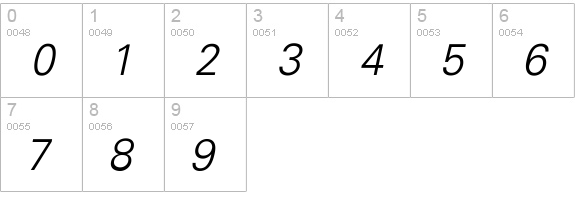
UniformLightOblique Font Details
UniformLightOblique is a stunning font that combines elegance and modernity in a harmonious way. With its slanted and light design, this font exudes a sense of sophistication and flair, making it perfect for a variety of design projects. The UniformLightOblique font features sleek lines and a subtle oblique angle that adds a touch of dynamism to your text. Its clean and clear letterforms ensure excellent legibility, even at smaller sizes, making it suitable for both print and digital applications. This font offers a unique blend of professionalism and creativity, making it a versatile choice for a wide range of design projects. Whether you are creating a logo, designing a website, or crafting a brochure, UniformLightOblique will elevate your design and make it stand out. What's even better is that UniformLightOblique is available for free download at FontsMarket.com. This means you can access this exceptional font without any hassle or cost. So, whether you are a professional designer or someone looking to add a touch of style to your personal projects, UniformLightOblique is the perfect choice. With its sleek and modern design, excellent legibility, and the convenience of being freely available, UniformLightOblique is a font that you simply cannot miss. Download it today from FontsMarket.com and take your designs to the next level.